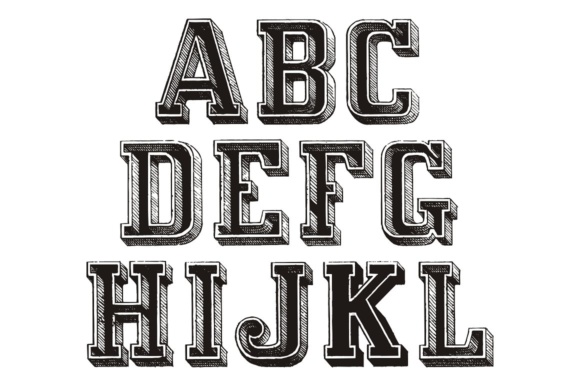
Introduction to Campi Font
Campi is a great display font by Intellecta Design.
This bold, blocky font contains all caps, and looks phenomenal in vintage display designs .
Key Features of Campi Font
Why Choose Campi Font?